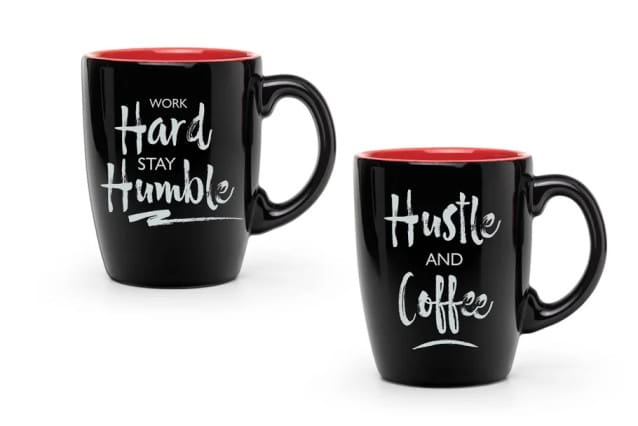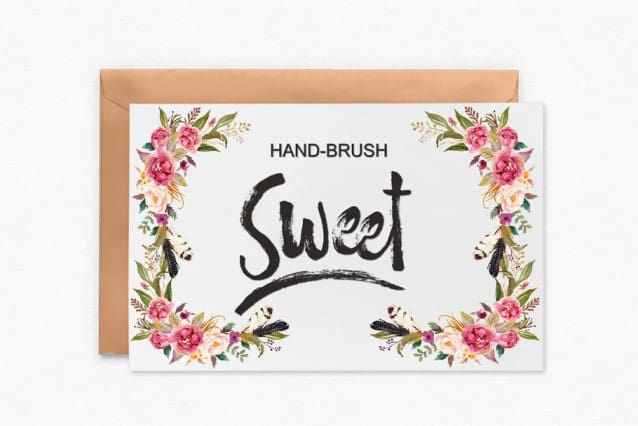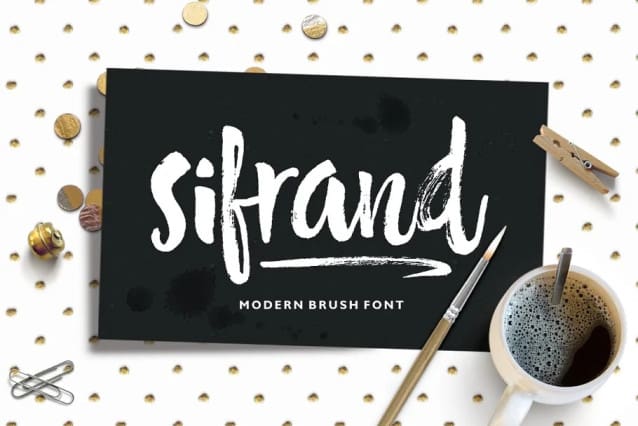
Sifrand Brush Font
Sifrand Brush Font is a modern brush font + Extras, organic, dynamic and energetic sytle.Can used for various purposes. such as the title, signature, logo, correspondence, wedding invitations, letterhead, signage, labels, newsletters, posters, badges, etc.